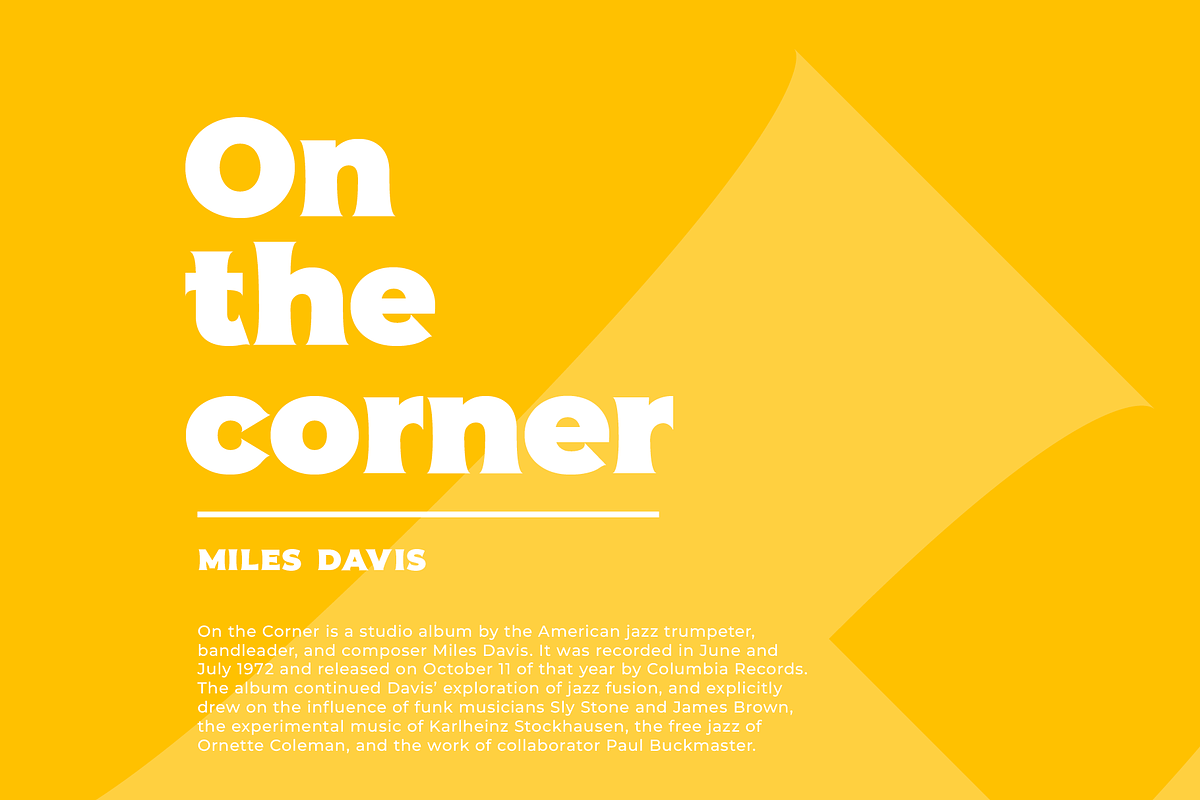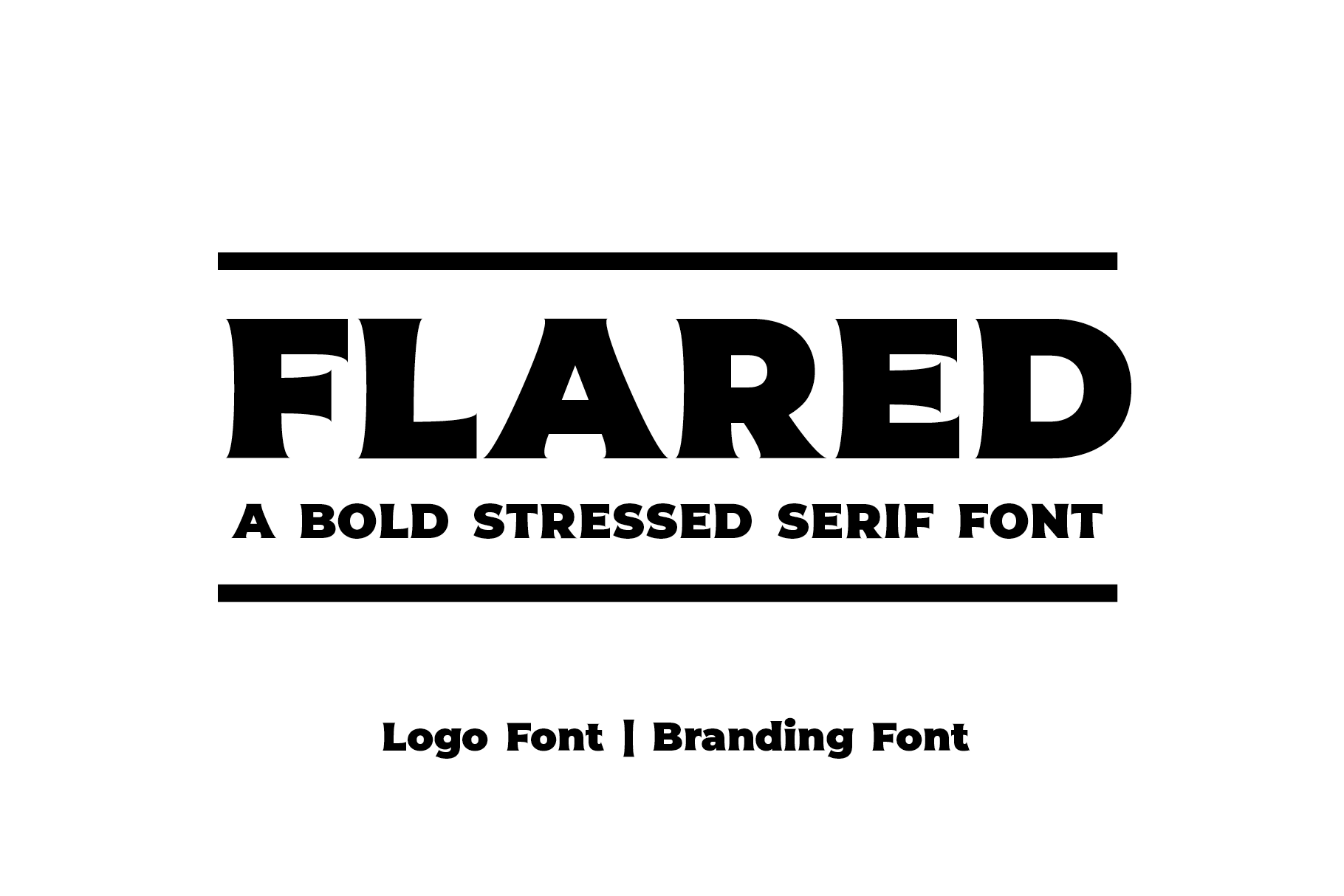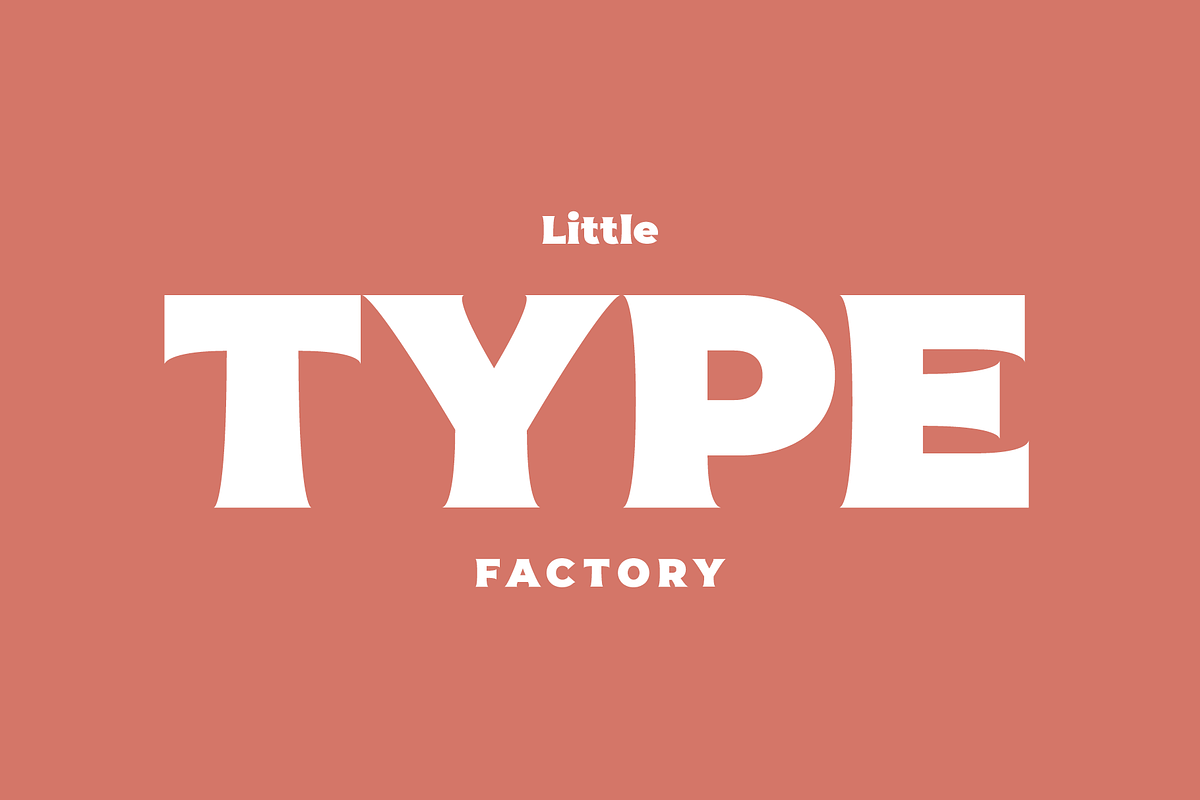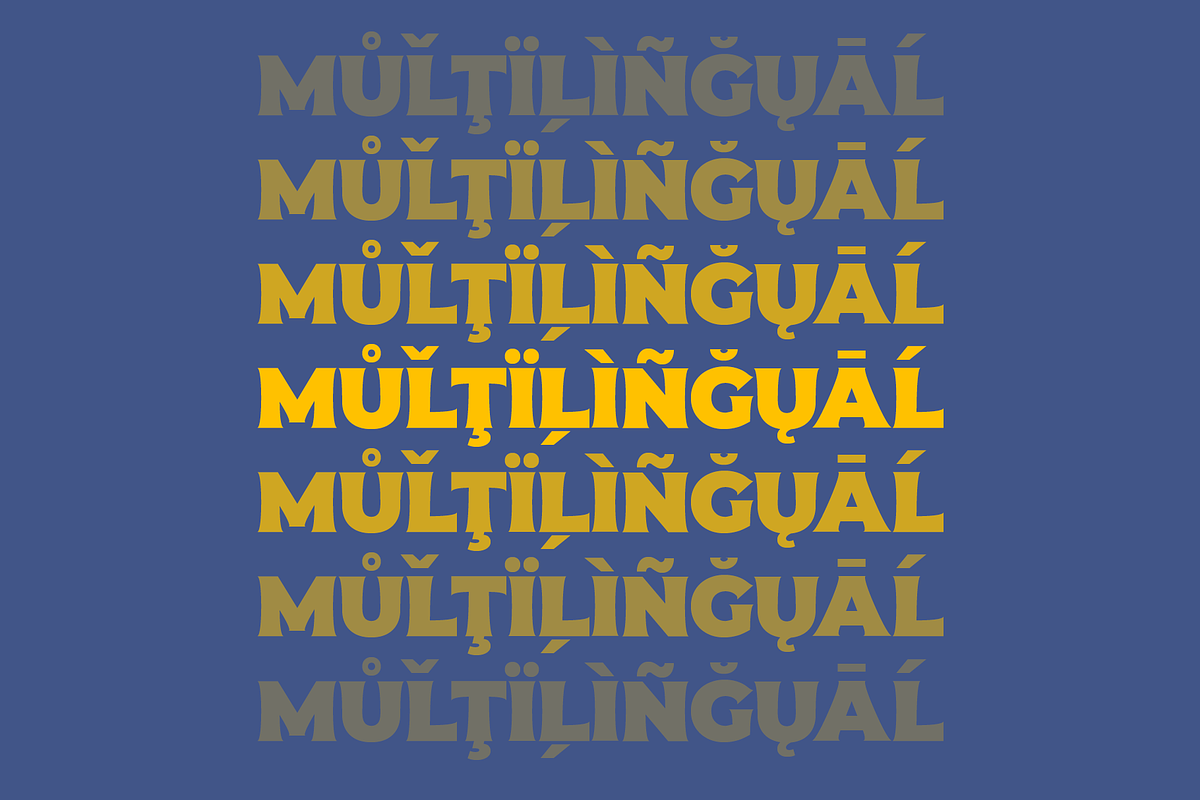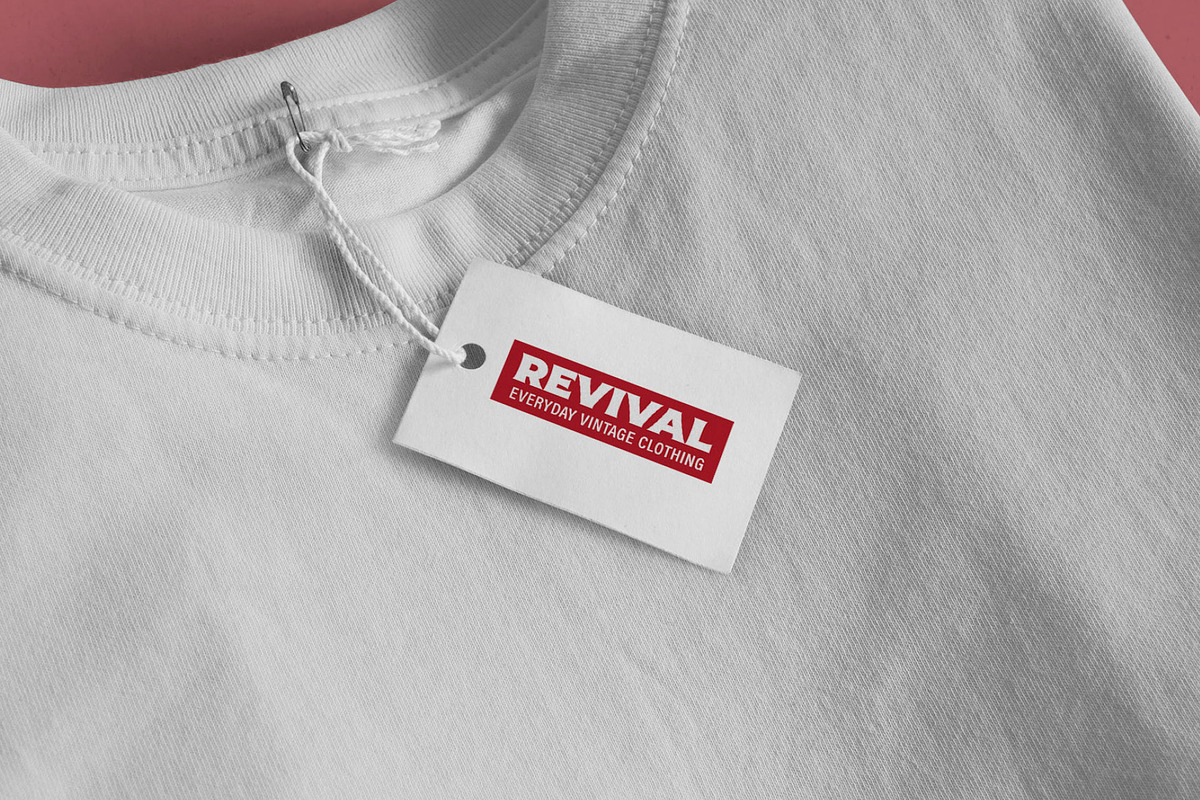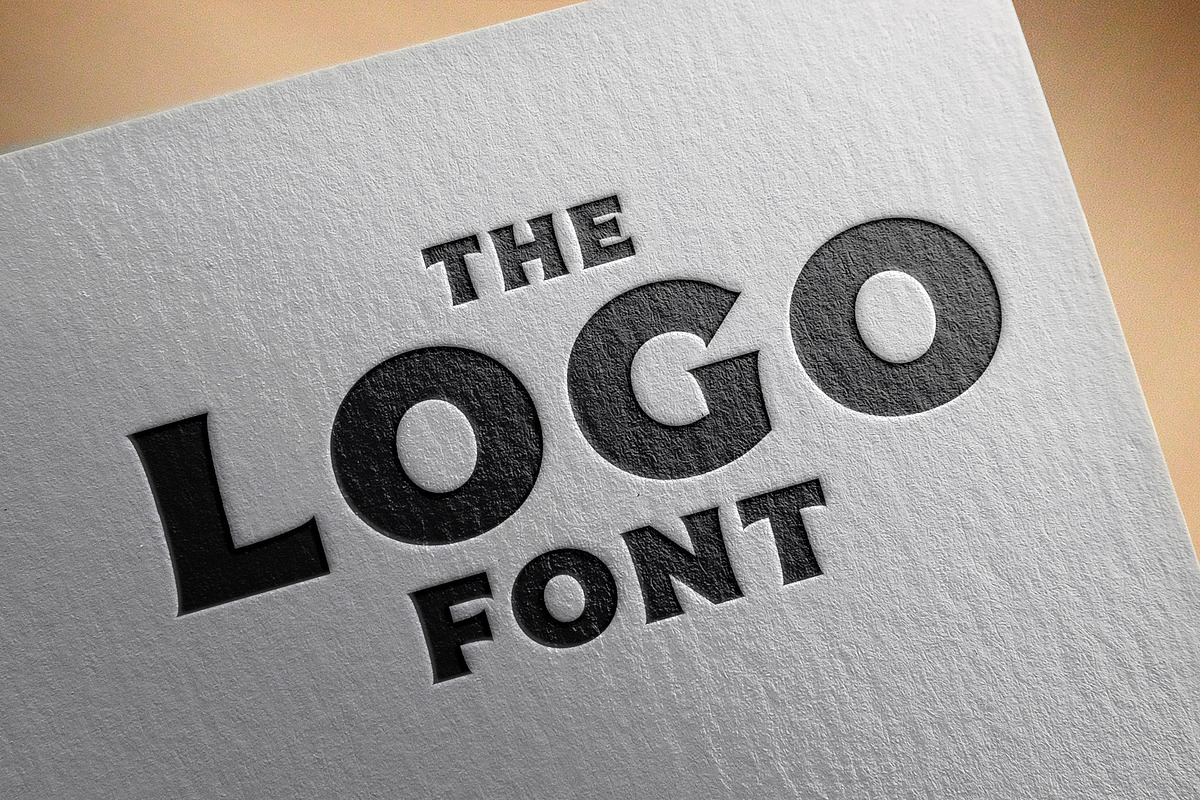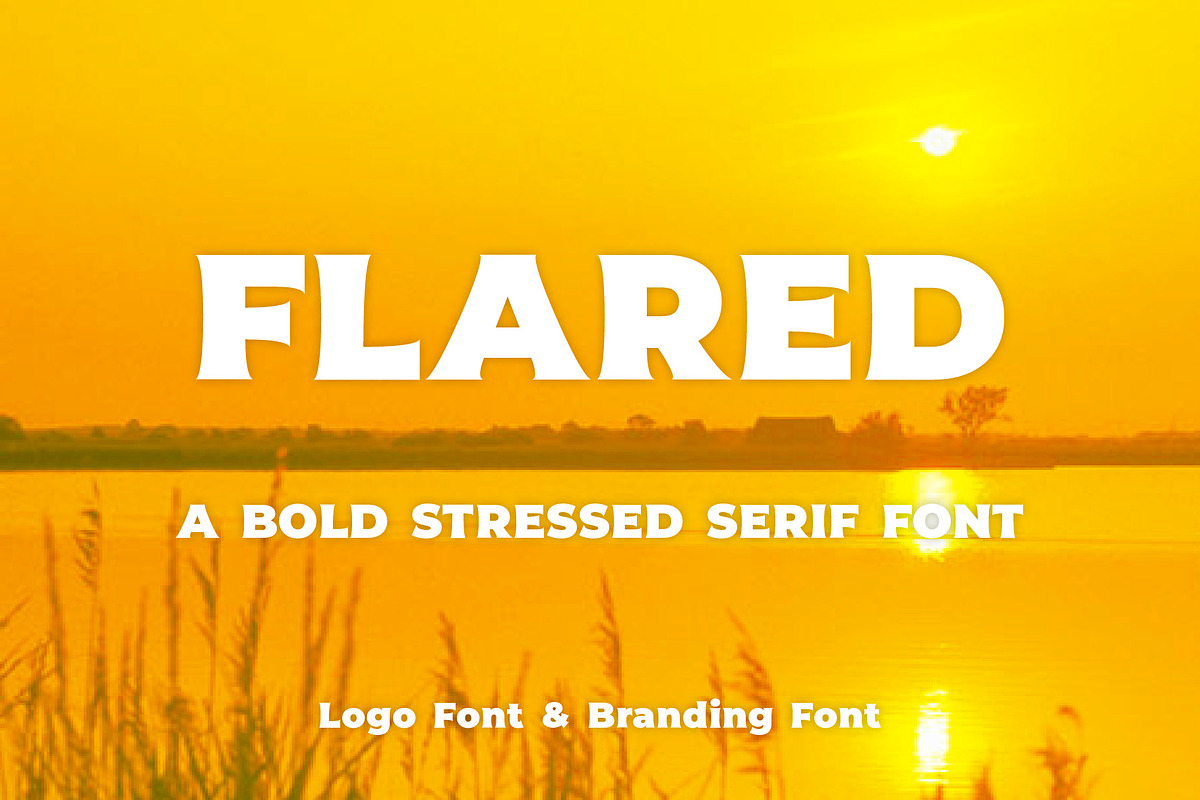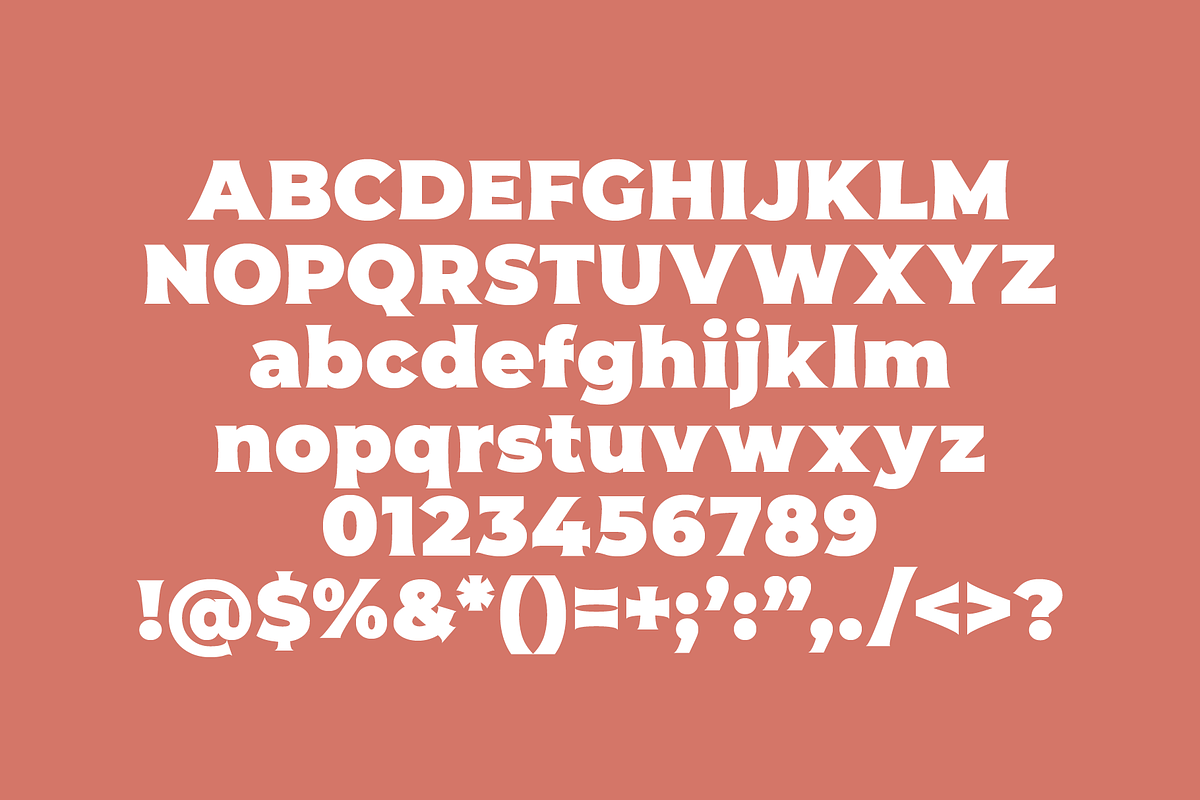
Flared - a logo font or brand font
Flared: The Perfect Logo Font & Branding Font
Looking for the ideal logo font or branding font to elevate your brand’s visual identity? Meet Flared, a bold, stylish display font designed specifically for creating unforgettable logos and impactful brand designs. Whether you’re launching a startup, rebranding, or creating eye-catching marketing materials, Flared ensures your brand stands out with confidence.
Why Flared is the Best Choice for Your Logo & Branding Designed for Logos & Branding: Flared is crafted with unique flared serifs that make it instantly recognizable. Its distinctive style is perfect for branding that needs to be memorable, versatile, and bold.
Ideal for Logo Design: Flared’s modern, clean letterforms are optimized for logo design, making it the perfect choice for creating iconic logos that will stand the test of time. Its striking appearance works equally well in large formats and smaller sizes, ensuring your logo always stands out.
Versatile for All Industries: From tech startups to luxury brands, Flared adapts seamlessly to any industry. Its bold yet elegant style works perfectly for a wide range of businesses looking to make a visual impact.
Enhance Brand Recognition: Flared’s unique design helps create a consistent and professional image for your brand. A strong, memorable branding font like Flared ensures your business leaves a lasting impression across all digital and print media.
Key Features of Flared: Unique flared serifs and modern curves for a distinctive logo Optimized for branding and logo design across both digital and print Perfect for creating memorable logos that capture your brand's essence
Whether you need a standout logo font for a new business or a refreshed branding font for your company, Flared is the perfect choice for making a bold statement. Transform your brand identity with Flared, the font designed to elevate your logos and branding to the next level.
Complete with uppercase, lowercase and special characters. Includes the full European character set including western, central and south eastern glyphs. This great vintage font comes in file OTF, TTF and WOFF file formats